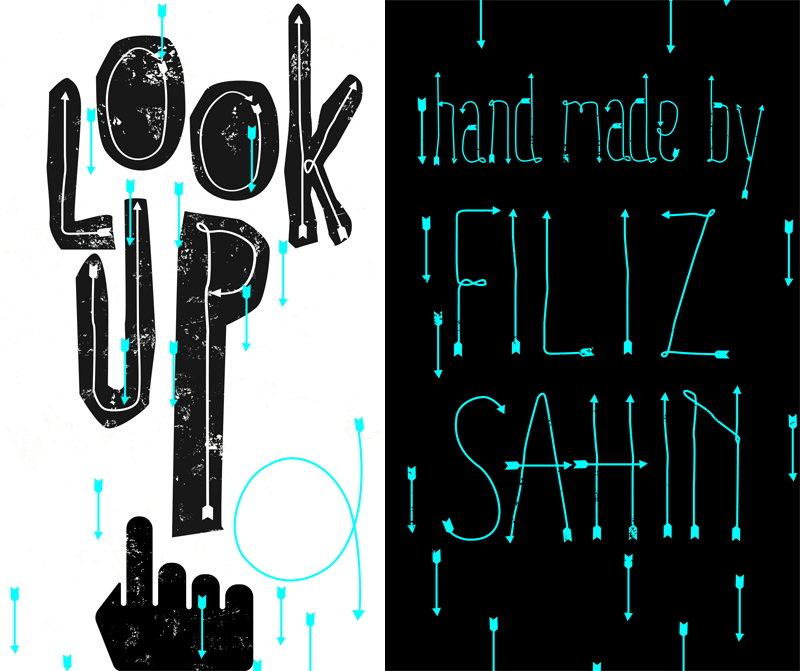
Look Up Free Font's playful type with a home-made feel. It has little arrows at the edge of each letter. It's easily accessible through the keyboard's upper and lower cases. It was inspired by little arrows on websites. Look up font allows you to create a lot of great things such as posters, magazines, printings, t-shirts etc. I had so much fun creating it. I hope you will have as much as I do! ENJOY! |